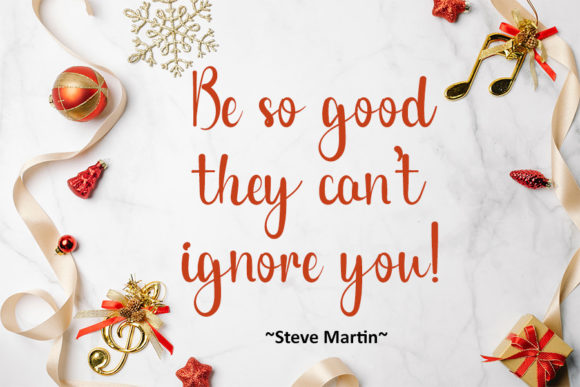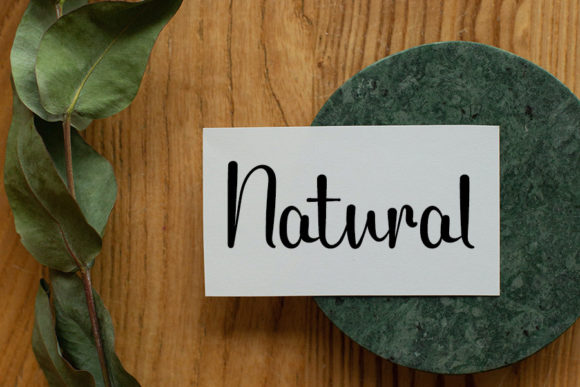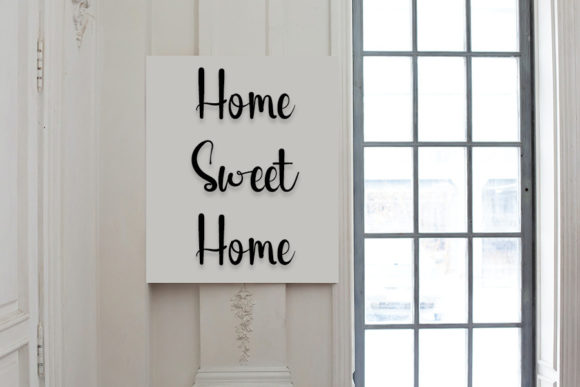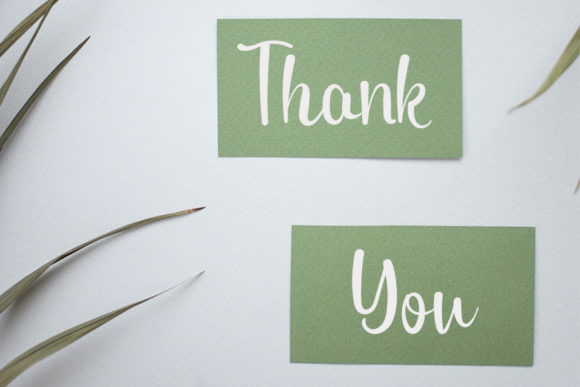
Introducing Decoration Font: Elevate Your Designs with Timeless Elegance
In the world of typography, few fonts manage to capture the essence of classic calligraphy while still exuding a modern vibe. Decoration Font is one such gem that seamlessly blends traditional elegance with contemporary flair. Inspired by timeless classic calligraphy, Decoration is a well-balanced handwritten font that brings an impeccable form to the table, making it an excellent choice for designers and crafters looking to add a touch of sophistication to their projects.
The Inspiration Behind Decoration Font
Decoration Font draws its inspiration from the rich heritage of classic calligraphy, where every stroke and curve was meticulously crafted to convey elegance and refinement. The creators of Decoration Font have successfully distilled the essence of these traditional calligraphic styles into a modern, handwritten font that resonates with today’s design sensibilities. The result is a font that feels both nostalgic and refreshingly contemporary.
Key Features of Decoration Font
- Contemporary Atmosphere: Decoration Font boasts a clean and modern aesthetic that makes it perfect for a wide range of design applications, from branding and packaging to digital media and print.
- Well-Balanced and Legible: One of the standout features of Decoration Font is its impeccable balance and legibility. Each letterform is carefully crafted to ensure that the text flows smoothly and reads effortlessly, making it ideal for both headings and body text.
- Versatility: Whether you’re working on a luxury brand project, a wedding invitation, or a digital blog, Decoration Font adapts seamlessly to various contexts, always bringing a touch of class and sophistication.
- Handwritten with a Personal Touch: Despite its roots in classic calligraphy, Decoration Font retains a personal, handwritten feel that adds warmth and character to any design.
Use Cases for Decoration Font
Decoration Font’s versatility is one of its most compelling attributes. Here are some scenarios where this font truly shines:
- Branding and Logotypes: The elegant and modern vibe of Decoration Font makes it an excellent choice for logos and brand identities that aim to convey luxury, sophistication, and a sense of heritage.
- Wedding and Event Invitations: For those special occasions, Decoration Font adds a touch of romance and class. Its calligraphic roots make it perfect for wedding invitations, save-the-date cards, and other event-related stationery.
- Packaging Design: Product packaging can greatly benefit from Decoration Font’s elegant style, especially for brands in the luxury, beauty, and gourmet food sectors.
- Digital Content: Blogs, social media graphics, and website headers can all be elevated with Decoration Font, providing a distinctive and memorable visual experience for readers and visitors.
Tips for Using Decoration Font Effectively
To make the most of Decoration Font, consider the following tips:
- Mix and Match: Combine Decoration Font with other fonts to create visual interest. Pairing it with a simple sans-serif font can highlight its unique features.
- Adjust Size and Color: Play with different sizes and colors to emphasize certain words or phrases, adding depth and hierarchy to your design.
- Experiment with Ligatures: If Decoration Font includes ligatures, experiment with them to add a more natural, handwritten feel to your text.
Decoration Font is more than just a typeface; it’s a design statement. With its roots in classic calligraphy and a keen eye on modern design principles, it offers the best of both worlds. Whether you’re a designer looking to elevate your branding projects or a crafter aiming to add a personal touch to your creations, Decoration Font is an excellent addition to your typographic arsenal. Its elegance, versatility, and contemporary charm make it a timeless choice that will undoubtedly enhance your designs.